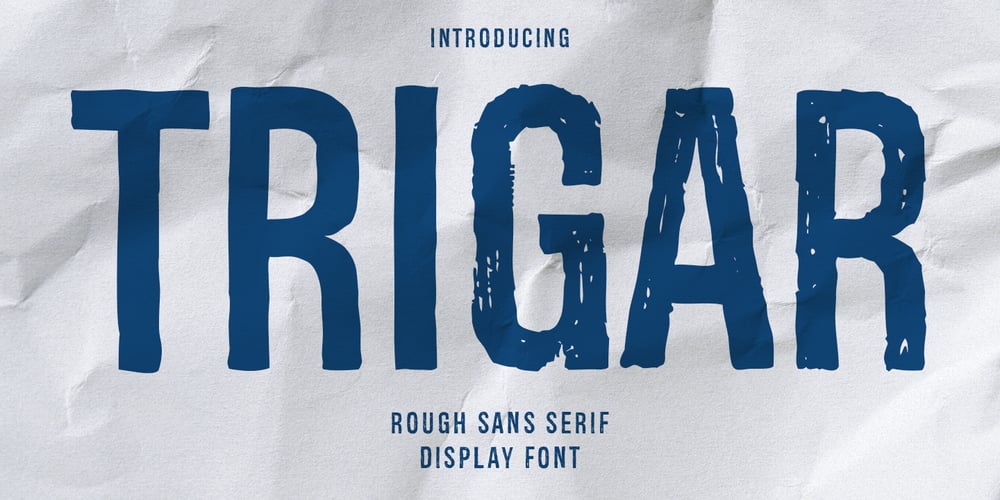
Trigar Font Family was designed by Gilang Maulana and published by Maulana Creative. Trigar contains 2 styles and family package options. Trigar is an all caps font. With 2 style stroke, fun character. To give you an extra creative work. Trigar font support multilingual more than 100+ language. This font is good for logo design, Social media, Movie Titles, Books Titles, a short text even a long text letter and good for your secondary text font with script or handwriting. Make a stunning work with Trigar font. Cheers, Maulana Creative